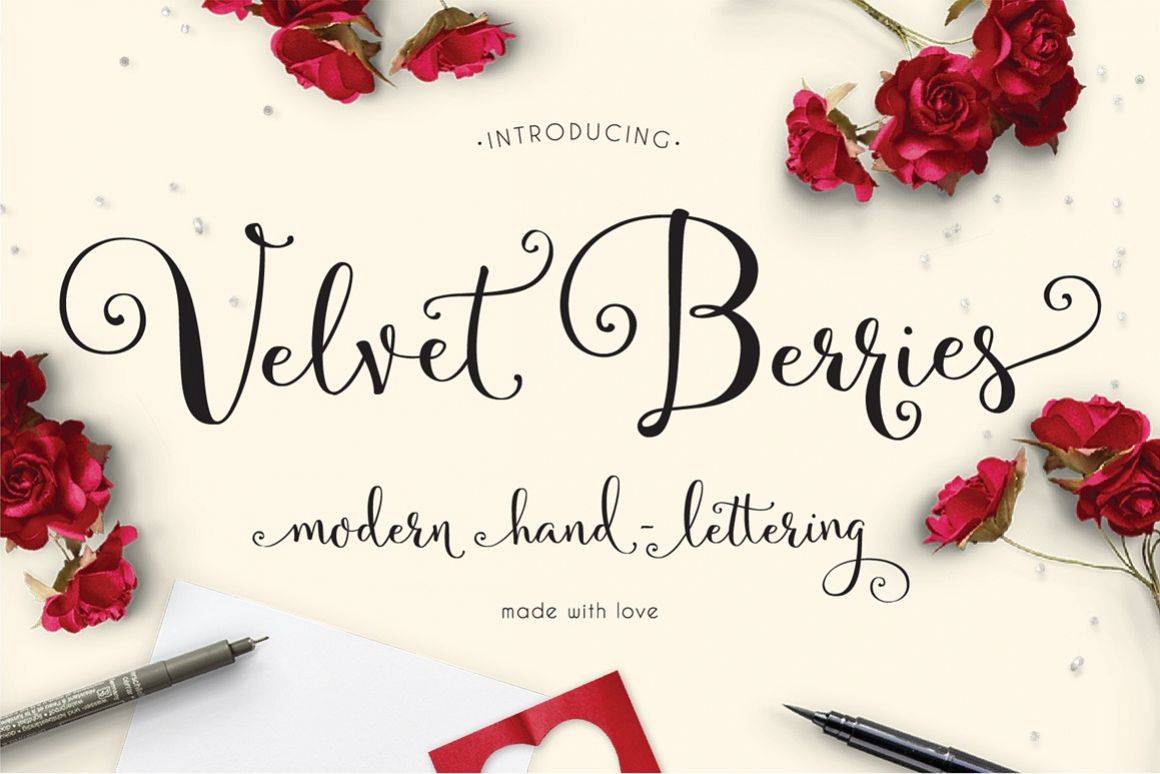
Created By Emily Spadoni
VelvetBerries
Introducing Velvetberries!. A modern spin on classic hand-lettered calligraphy. Warm inviting characters you'll use through all seasons, weddings, showers, logos, holidays and more!
In total - 4 added files of additional decorative glyphs, many additional common letter combinations, and even the multi-lingual glyphs are all decorated. Use "Left" and "Right" to create your own decorated word styles.
In total hundreds of swirly letter combinations, creating an authentic hand-made, hand-lettered style text.